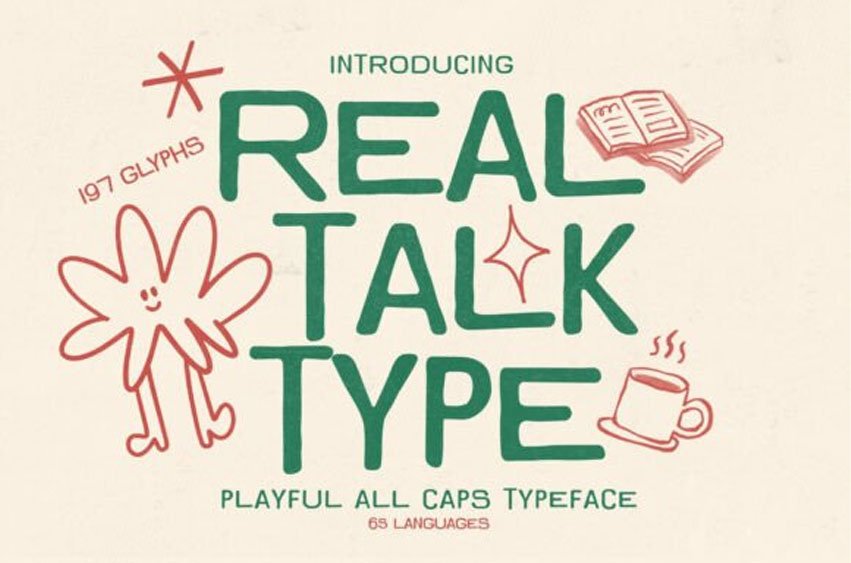
Real Talk Type Font is a handwritten, all-caps sans-serif that doesn’t whisper — it speaks up. This playful display font blends organic imperfection with modern confidence, delivering letterforms that feel raw, human, and refreshingly real. Every character carries a natural, uneven rhythm that mimics authentic handwriting while maintaining the clarity and bold presence designers crave.
Real Talk Type isn’t polished to perfection — and that’s exactly the point. Its subtle irregularities and casual flow create personality-packed headlines, expressive logos, and scroll-stopping social posts. It feels spontaneous yet intentional. Modern yet timeless. Effortless yet powerful.
Designed for creators who want their work to connect — not just look good — this font injects warmth, energy, and a fearless vibe into every project.